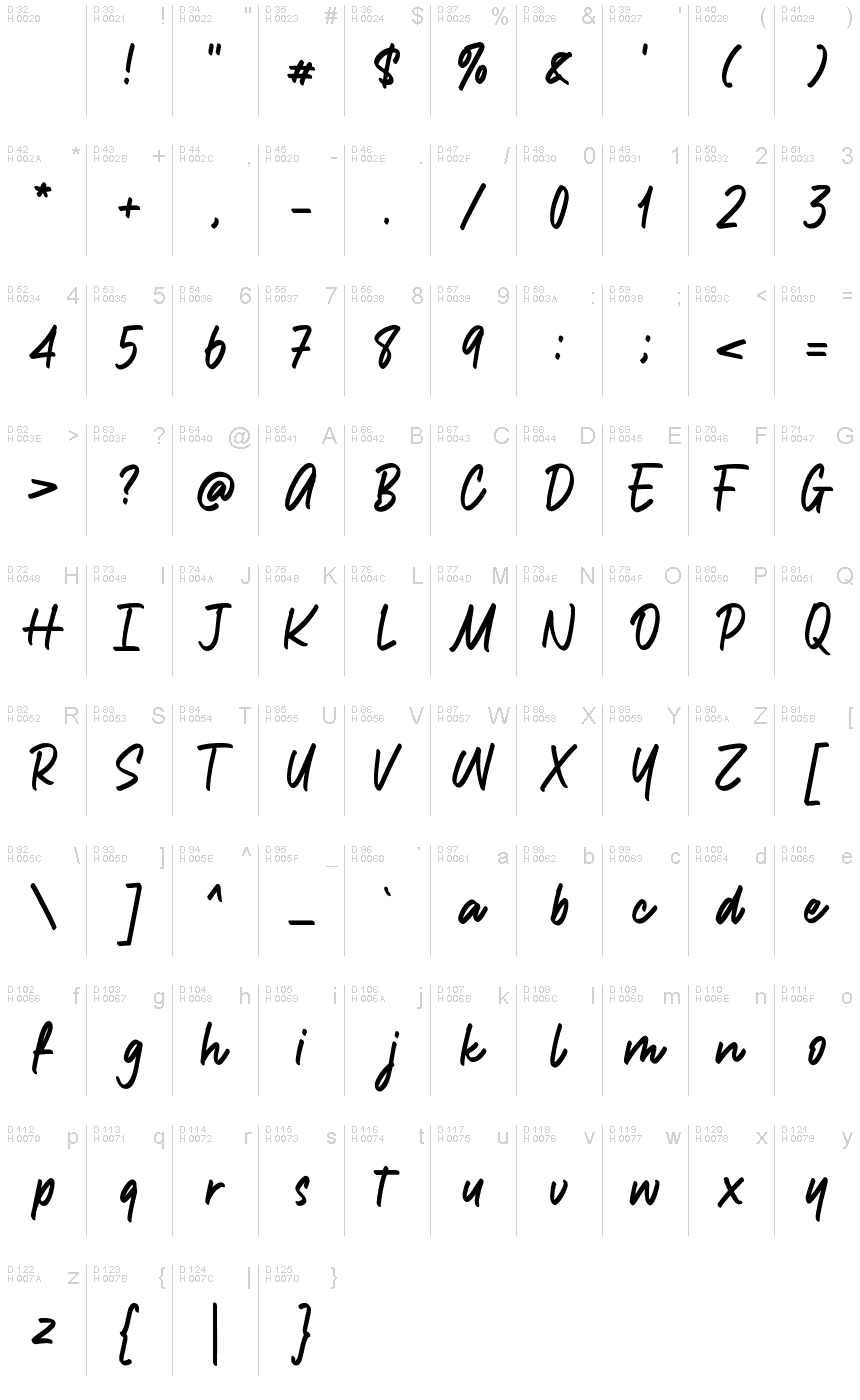
Callmounth
Looking for a bold and playful font that's perfect for your next project? Look no further than Callmounth, designed by Allouse.Studio. With its unique marker style, this font is sure to grab attention and add a touch of whimsy to any design. Whether you're working on a children's book, a logo for a fun-loving brand, or even just some eye-catching social media graphics, Callmounth is the perfect choice. So why settle for boring typography when you can make a statement with Callmounth?